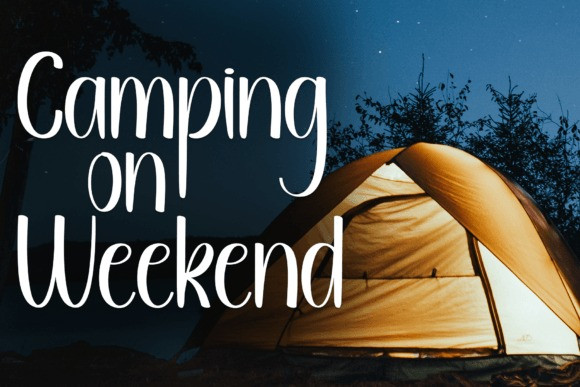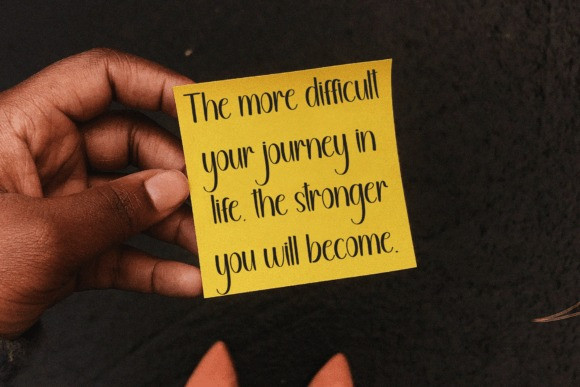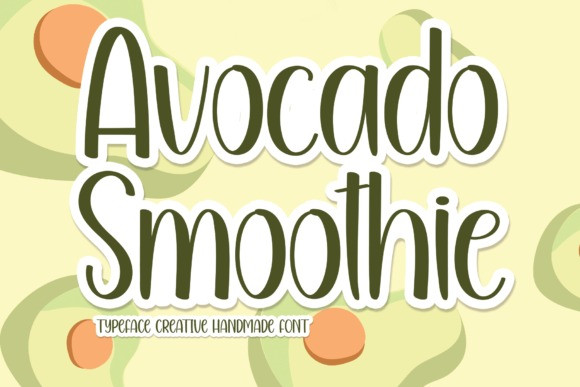
Avocado Smoothie Font
Avocado Smoothie Font, a delightful and whimsical script typeface that embodies the refreshing essence of a creamy avocado smoothie. With its playful curves and organic strokes, this font adds a touch of natural charm to any design. Perfect for food packaging, recipe cards, and playful branding. Let Avocado Smoothie Font bring a deliciously fun vibe to your creative projects.